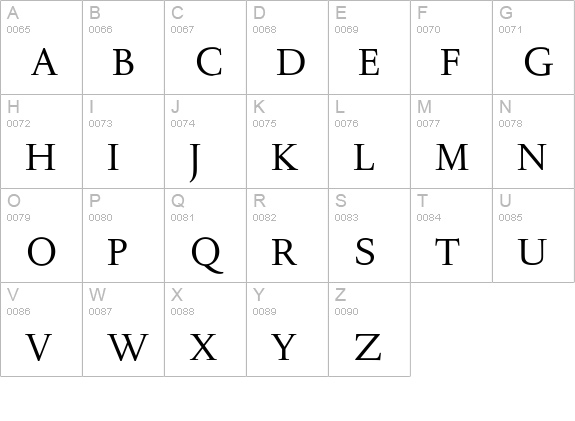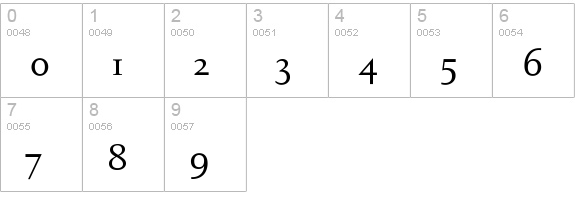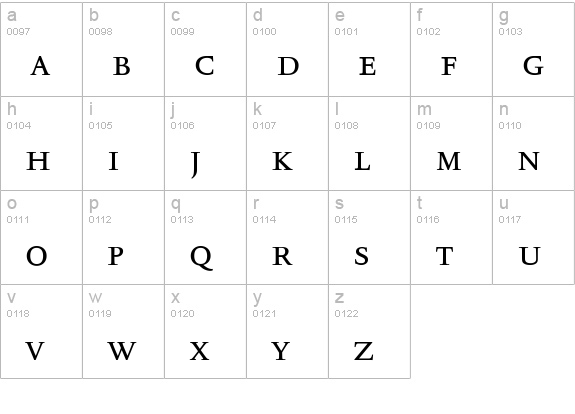
The DTL Romulus T Caps font is a modern and sophisticated typeface that exudes elegance and professionalism. With its clean lines and sharp edges, this font is perfect for creating a polished and refined look for your design projects. The uppercase letters in this font are bold and commanding, making a strong statement wherever they are used. What sets the DTL Romulus T Caps font apart is that it is available for free download at FontsMarket.com. This means you can easily access this high-quality font without having to spend a dime. Whether you are working on a branding project, editorial design, or any other creative endeavor, the DTL Romulus T Caps font will add a touch of sophistication and style to your work. Download it today and elevate your designs with this stunning typeface.